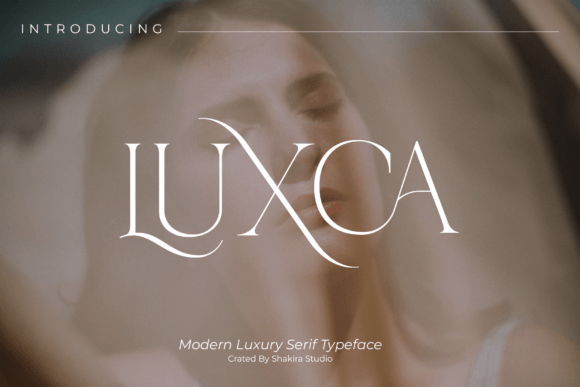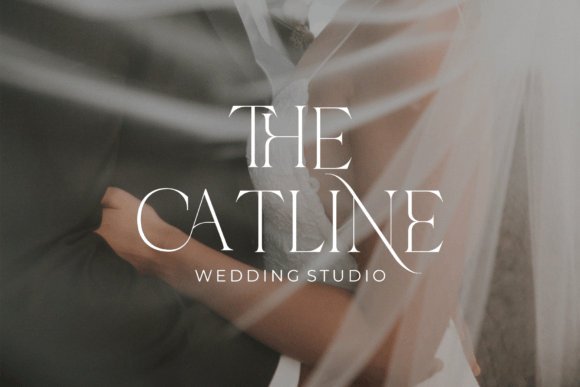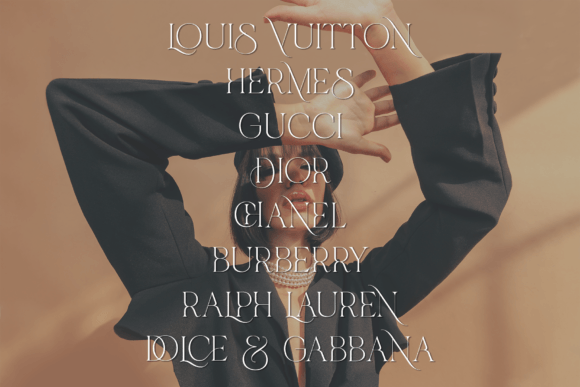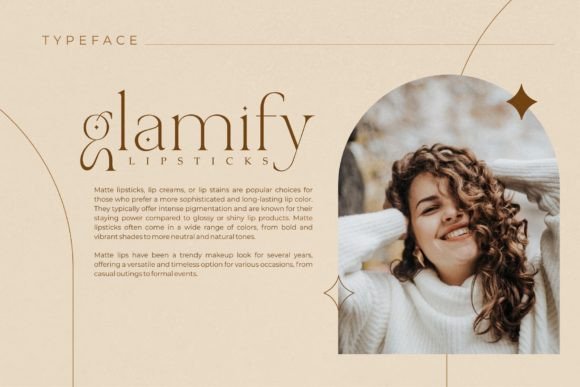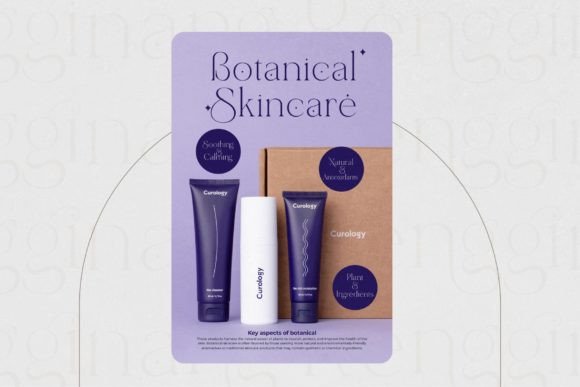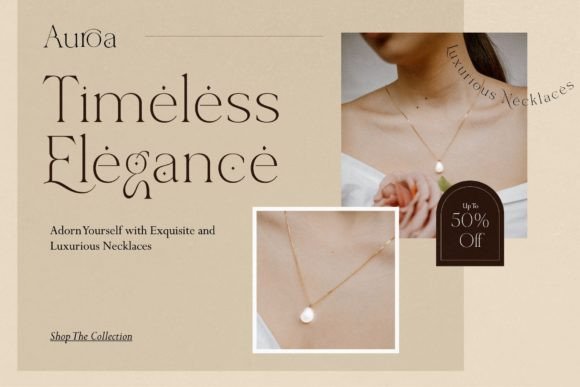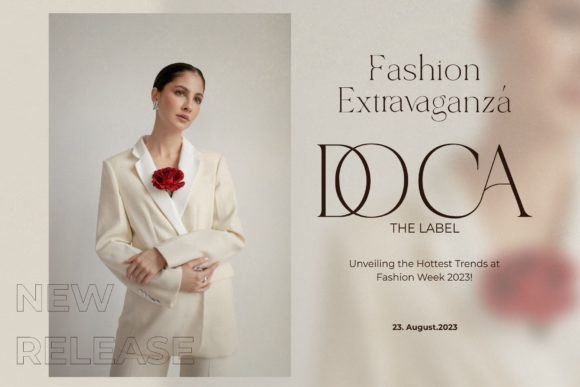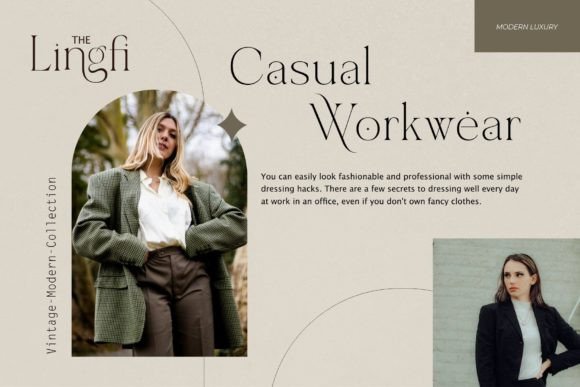
Luxca Font
Introducing Luxca, a font that epitomizes modern luxury within the serif category. This typeface seamlessly blends contemporary sophistication with timeless elegance, making it the perfect choice for designers seeking to infuse their projects with an air of opulence and refinement.